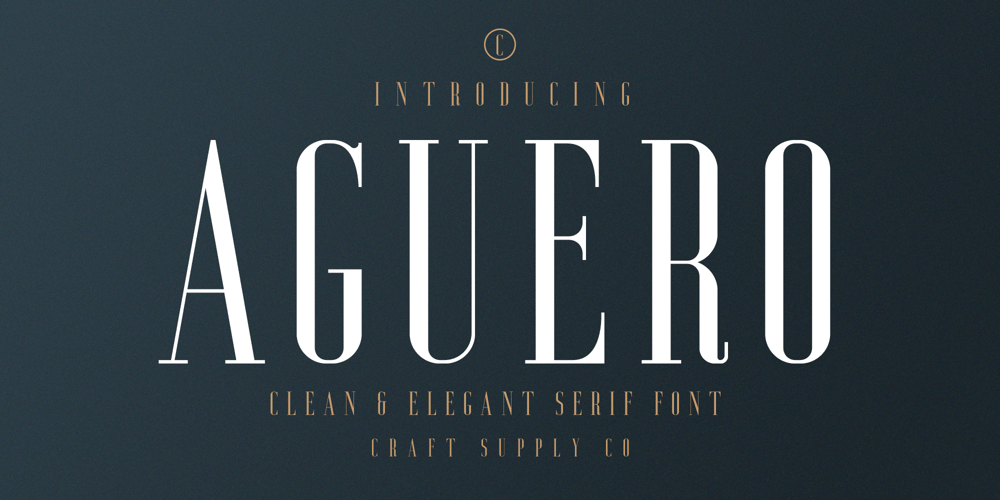
Aguero Serif Font Family was designed by Trio Nazzar Saputra, Wahyu Hadi Yuana and published by Craft Supply Co. Aguero Serif contains 2 styles and family package options. Aguero Serif – Clean & Elegant Serif Font is a modern serif font family whose design refers us to the style of transitional serifs. The distinctive features of Aguero Serif – Clean & Elegant Serif Font are the relatively low contrast of strokes, the slightly squarish shapes of round characters and the emphasized businesslike nature.